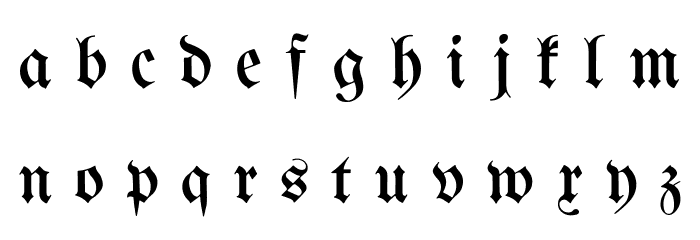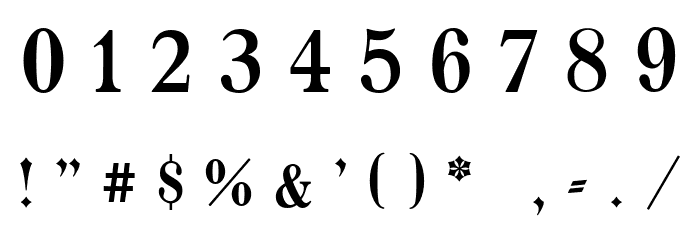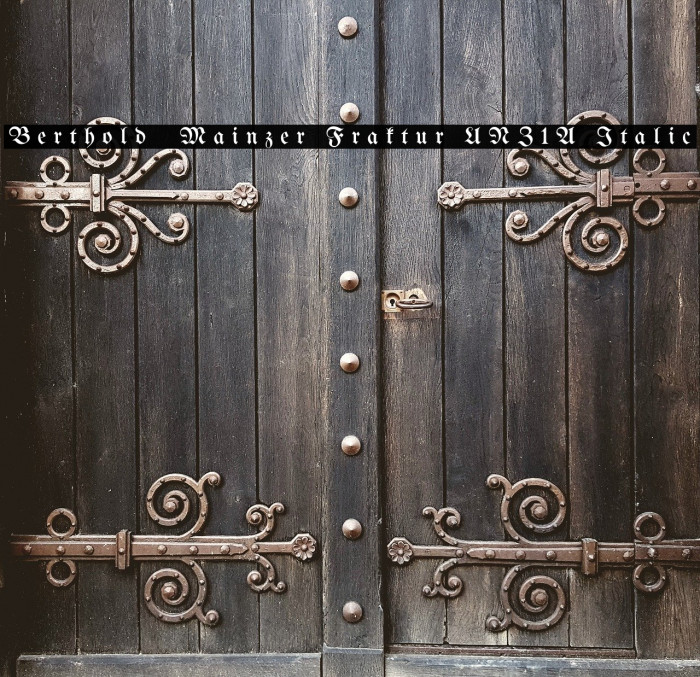
Berthold Mainzer Fraktur UNZ1A Italic Font
This font exhibits a traditional and ornate style, reminiscent of historical scripts with its intricate and decorative letterforms. The uppercase letters are characterized by their elaborate serifs and flourishes, creating a sense of grandeur and elegance. The lowercase letters maintain a consistent style, with sharp angles and distinctive curves that enhance the overall aesthetic. Numbers are bold and clear, complementing the ornate style of the alphabet. Special characters are designed with similar attention to detail, ensuring a cohesive look across all elements. This font's unique style makes it suitable for projects that require a touch of historical or classical elegance.
An ornate and decorative font with historical elegance.
- Proposed Projects: Ideal for invitations, certificates, historical documents, or branding that requires a classical touch.
- Overall Style: Classic
- Use Case: Headlines, Logos, Decorative text